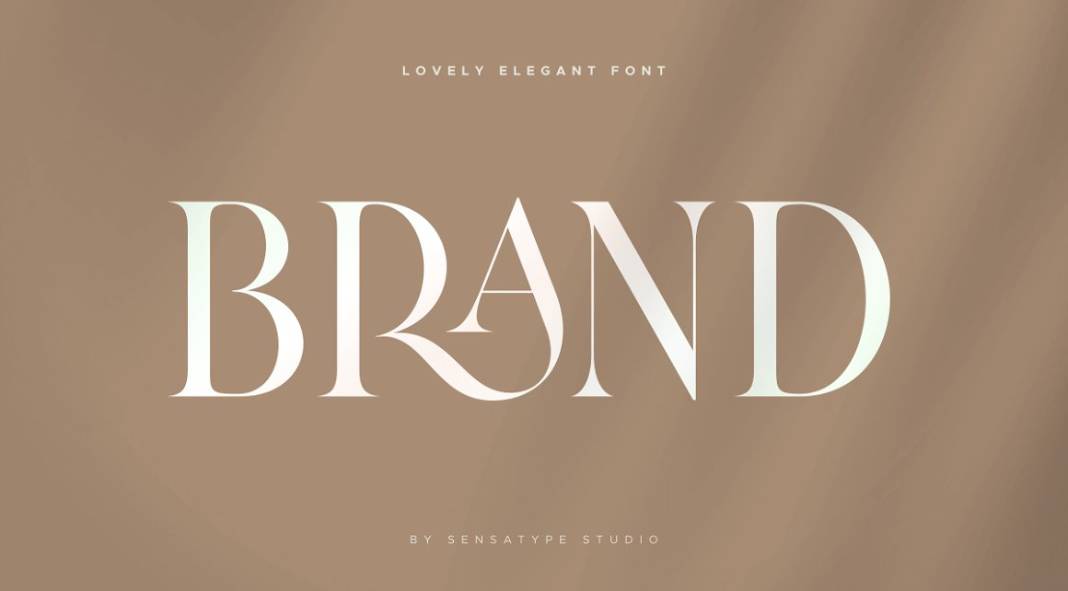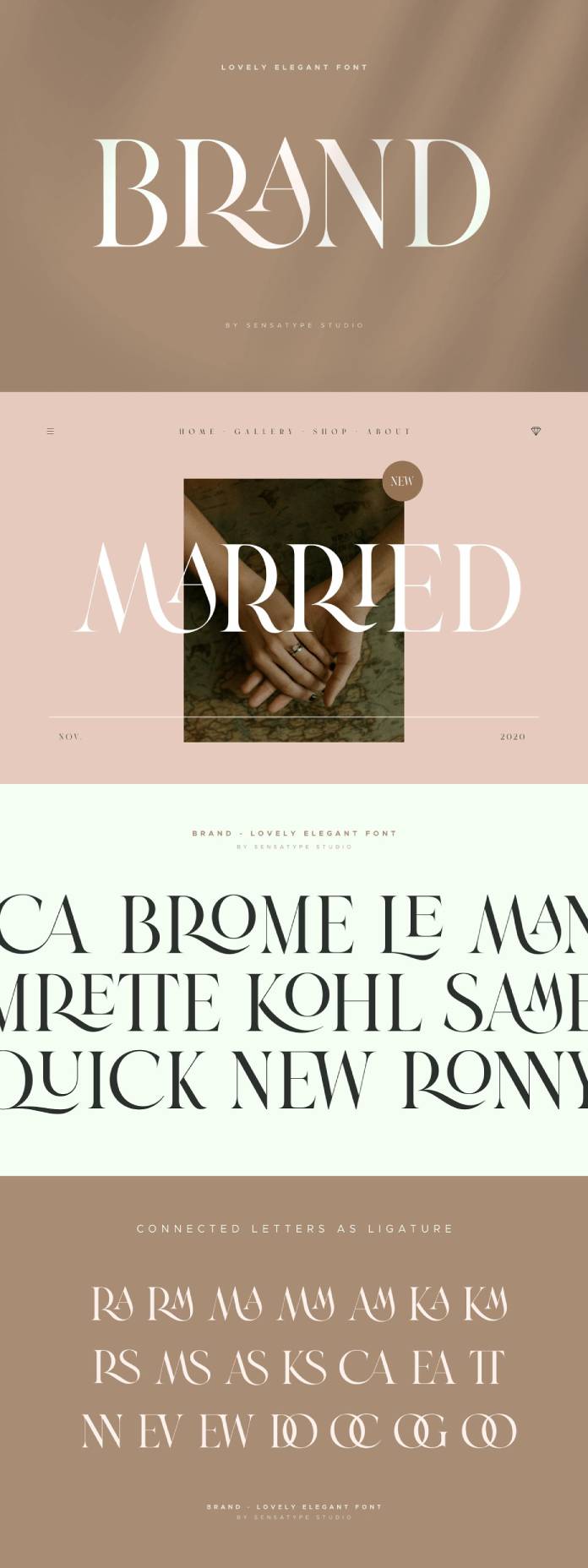
Say hello to Brand, an elegant font for branding projects and logo design.
Designed by the skilled team of Sensatype, the Brand font provides an elegant style combining classic lettering with modern typography. With its unique look, the typeface was made for branding and logo design projects. Brand is an all-uppercase font that supports multilingual characters. Equipped with numerous OpenType features, it comes with numerals, punctuation, and plenty of ligatures.